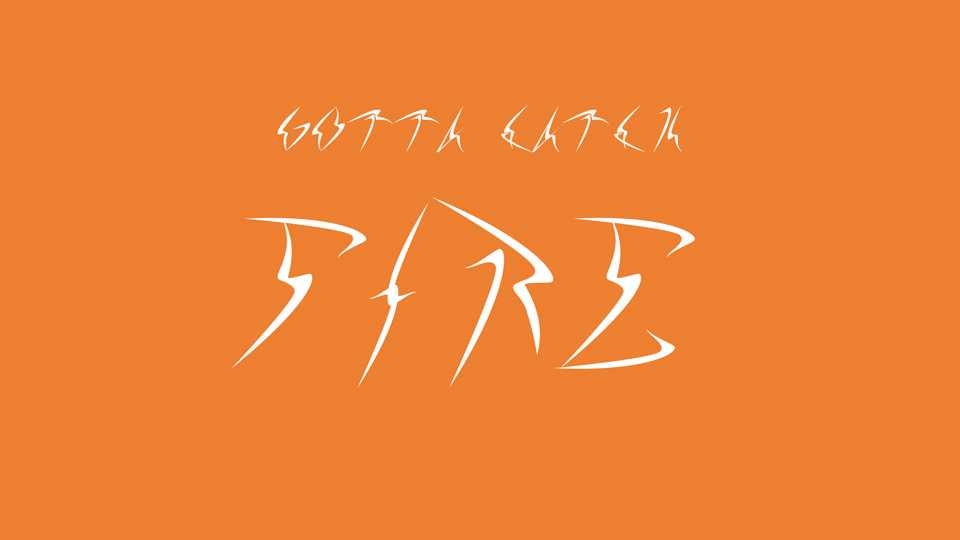
Download Gotta Catch Fire font, an experimental hand lettered typeface designed during a type design initiation workshop given by Lucas Descroix in March 2021.
Designer: Tonya Palcy